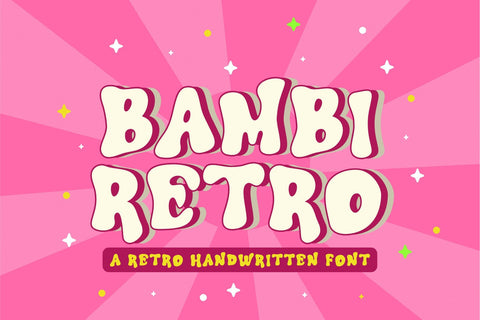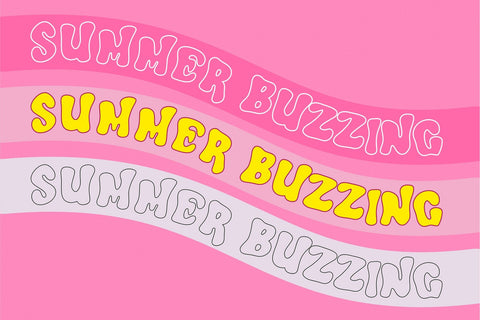
Bambi Retro - Layered Font, Groovy Font, Boho Font
Bambi Retro is an irregular-style font that is perfect for branding projects, logos, social media, advertisements, product packaging, or crafty projects. Use it for branding, procreate, crafts for decor, invitations, and more!